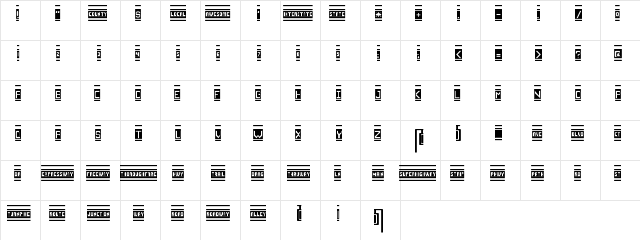
avenue Regular
Design Context for avenue Typeface
avenue is a composed and adaptable typeface that performs quietly and consistently across a wide range of design contexts.